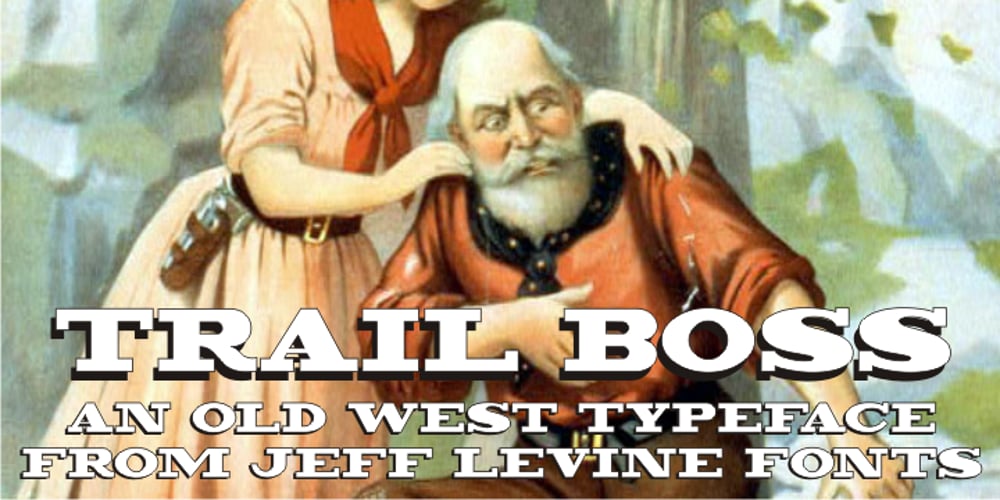
Trail Boss JNL
Trail Boss JNL font
Trail Boss JNL Font Family was designed by Jeff Levine and published by Jeff Levine. Trail Boss JNL contains 1 styles and family package options. Trail Boss JNL emulates vintage wood type and was inspired by a few visual examples found online. The erratic widths of the letters are part of the intrinsic charm of this kind of lettering.